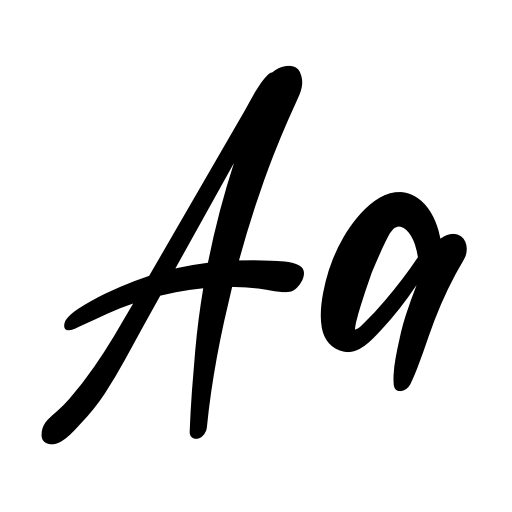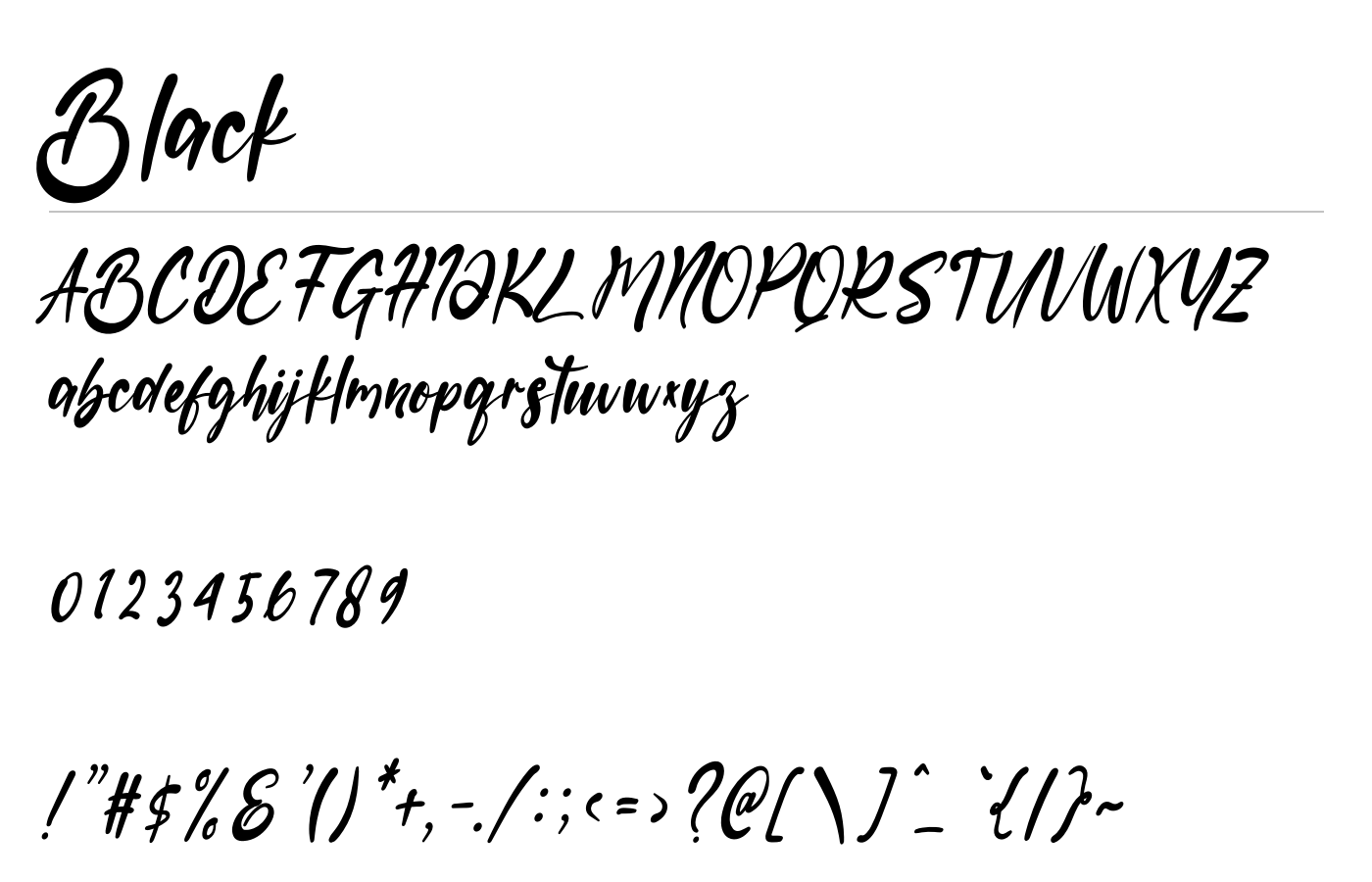
Black Font is a bold, expressive script typeface with a lively, handwritten feel. Its fluid strokes and moderate contrast create a dynamic and energetic style ideal for eye-catching headlines, logos, and branding that seek a personal, creative touch. This font works well in creative and fashion contexts where a stylish, informal elegance is desired.
Black Font
About Black Font